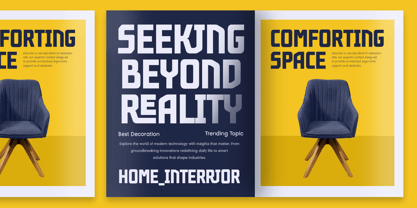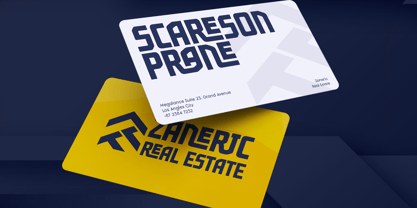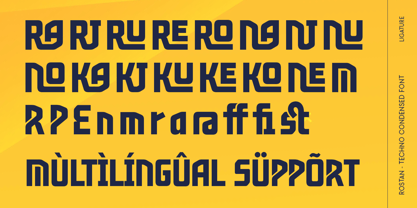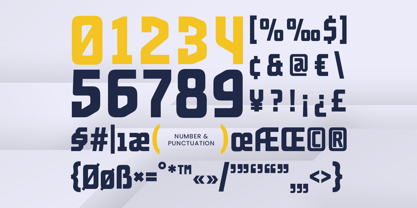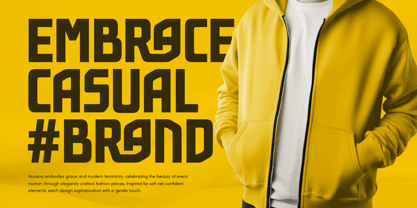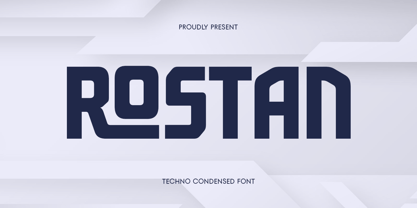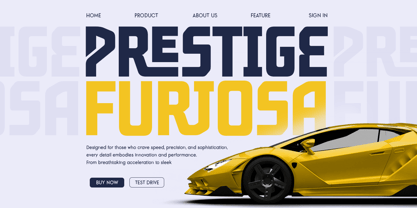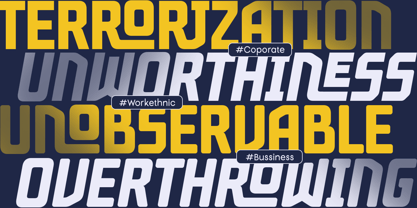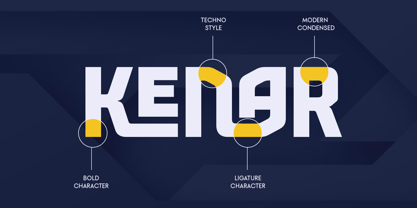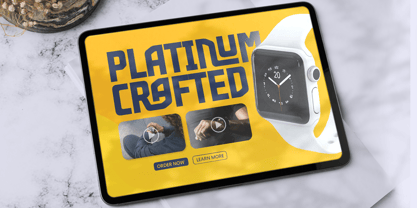
Rostan
por Sensatype Studio
La familia tipográfica Rostan fue diseñada por Zamroni Hamzah y publicada por Sensatype Studio. Rostan contiene 4 estilos y opciones de paquete familiar. Más información sobre esta familia
Rostan is a techno condensed font designed for high-tech branding, futuristic interfaces, and cyber-inspired typography. With its narrow proportions, bold structure, and clean geometric lines, this font is perfect for sci-fi posters, esports branding, technology startups, and modern UI/UX design.
The compact letterforms and sharp angles create a cutting-edge and dynamic aesthetic, making Rostan ideal for futuristic logos, digital dashboards, tech advertisements, and AI-driven projects. Its sleek and minimalistic appearance ensures a powerful and sophisticated presence in any design.
Whether you're crafting a next-gen product identity or a bold gaming title, Rostan is the perfect fusion of modern technology and stylish typography.
Rostan - Techno Condensed Font Features:
• Condensed letterforms with a futuristic techno look
• Ready with 4 Font Styles inside
• Perfect for sci-fi, gaming, and technology branding
• Punctuation, numbers, and symbols included
• Uppercase and lowercase letters
• OpenType features: Ligature & Alternate Characters for enhanced creativity
Elevate your designs with Rostan—a futuristic and modern condensed font built for the digital age.